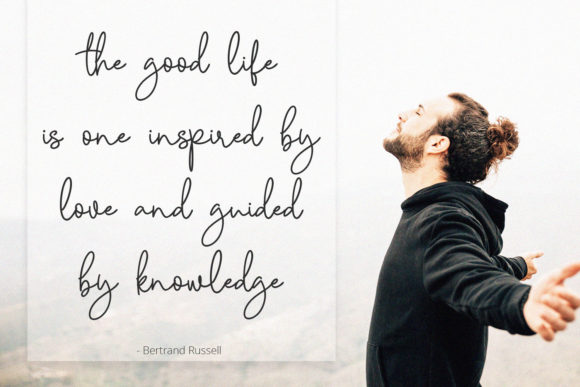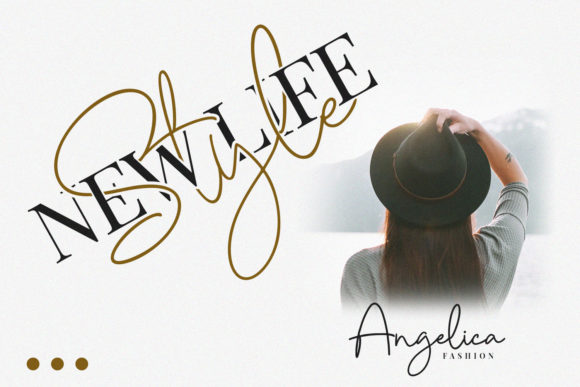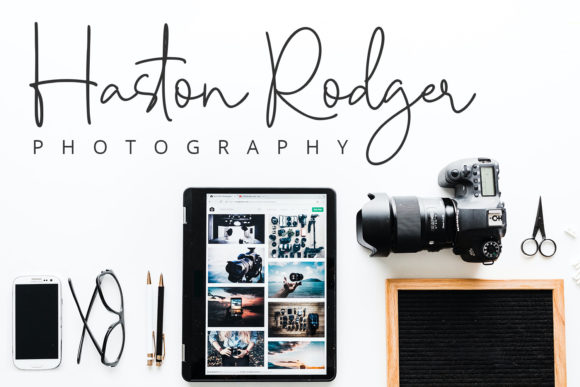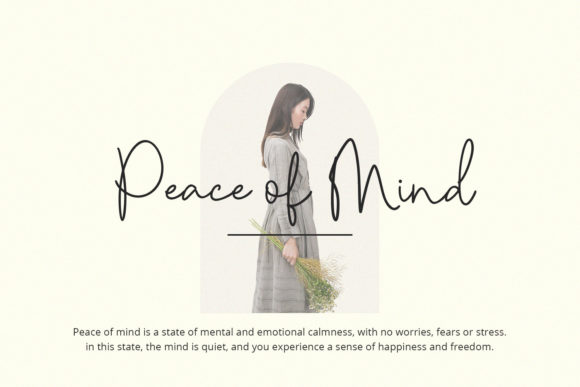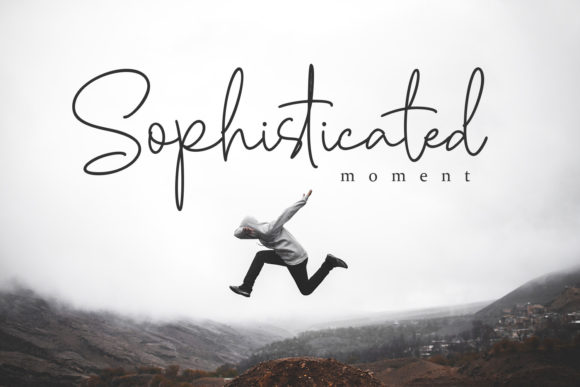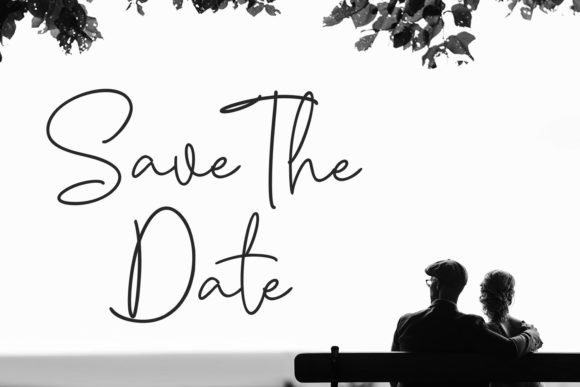
The Aesthetic Font: Elevate Your Designs with Elegance
I’ll never forget the time I was working on a branding project for a luxury skincare client. I had spent hours perfecting the logo design, but something felt off. The font I had chosen just wasn’t giving me the sophisticated, high-end vibe I was going for. That’s when I stumbled upon the Aesthetic font. With its clean, thin, and smooth lines, it instantly elevated my design and nailed the look I was aiming for.
- ✨ Clean and elegant design: Aesthetic has a super delicate and stylish script font that adds a touch of sophistication to any design.
- ✅ Versatility: Whether you’re working on a logo, brochure, or social media graphics, Aesthetic fits right in.
- 💫 Easy on the eyes: The thin and smooth lines make it perfect for designs where you want to convey a sense of luxury or minimalism.
While Aesthetic is an amazing font, there are a couple of things to keep in mind:
- 🤔 Legibility at small sizes: Like many script fonts, Aesthetic can get a bit tricky to read when scaled down. Make sure to test it at different sizes to ensure it works for your specific project.
- ⚠️ Overuse: Because it’s so elegant, it’s easy to overuse Aesthetic in a design. Balance it with some bold or sans-serif fonts to keep things interesting.
A Practical Guide: Using Aesthetic in Your Designs
- Experiment with OpenType features like ligatures and stylistic alternates to give your text a unique touch.
- Dive into the glyphs panel to access special characters and alternate glyphs.
The Story Behind Aesthetic: Designer Inspiration
Aesthetic was inspired by the minimalist design trends of the 2020s. The creator aimed to craft a font that embodies elegance and sophistication while remaining versatile and easy to read. The result is a font that’s perfect for designers looking to add a touch of luxury to their work.
Q: What makes Aesthetic a good choice for branding projects?
A: Aesthetic’s clean and elegant design makes it perfect for branding projects where you want to convey a sense of luxury or sophistication.
Q: Can I use Aesthetic for body text?
A: While Aesthetic is beautiful, it’s best used for headlines or short paragraphs. For longer body text, consider pairing it with a more readable sans-serif font.
Q: Is Aesthetic suitable for digital designs?
A: Absolutely! Aesthetic works well for both print and digital designs. Its smooth lines and elegant style make it perfect for everything from social media graphics to website headers.